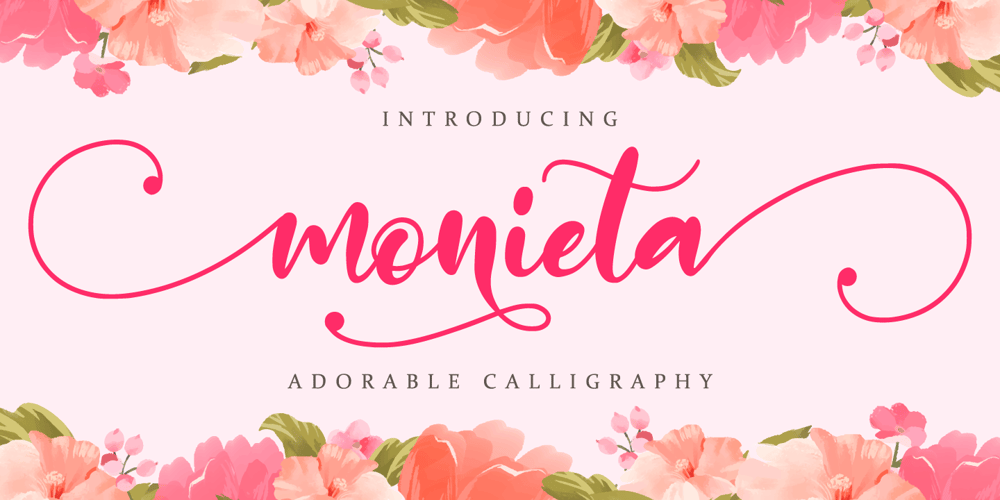
Monieta Font Family was designed by Abdul Malik Wisnu and published by Almarkha Type. Monieta contains 1 styles and family package options. Monieta -is a Adorable Script Calligraphy font with a natural handwritten feel. It has lovely ligatures and alternates that are perfect for any creative design. This handmade font will make your design has a beautiful natural touch for each details. It is perfect for any design project as Invitation,logo, book cover, craft or any design purposes.This font is PUA encoded which means you can access all of the magical glyphs and swashes with ease! It also features a wealth of special features including alternate glyphs and ligatures. Simple installationsAccessible in the Adobe Illustrator, Adobe Photoshop, Adobe InDesign, even work on Microsoft Word. PUA Encoded Characters – Fully accessible without additional design software. Fonts include multilingual support Image used : All photographs/pictures/vector used in the preview are not included, they are intended for illustration purpose only. Cheers!Thank You